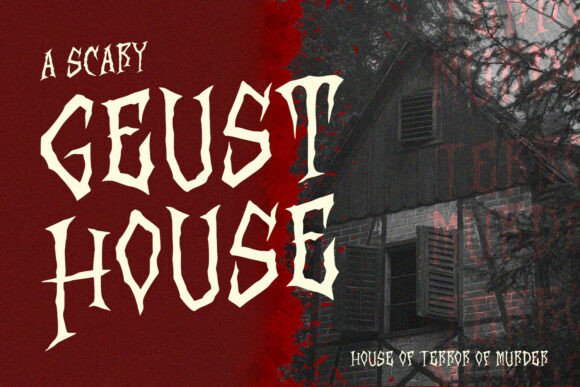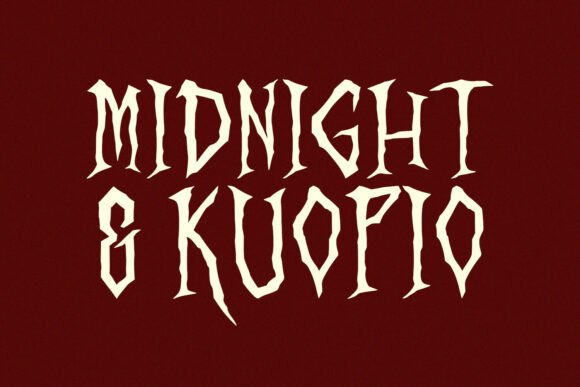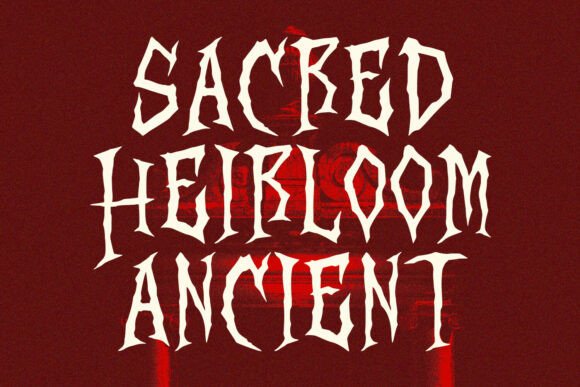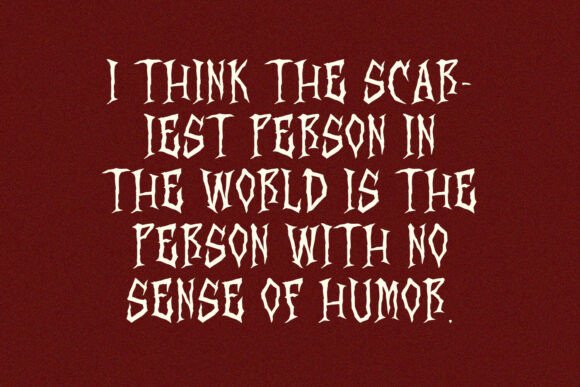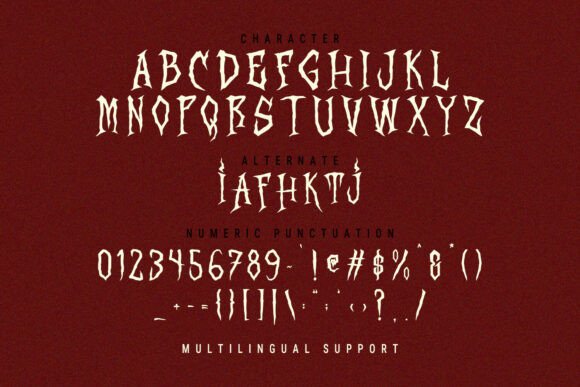
Unleash the Horror with Annarzaq Font: A Spine-Chilling Display Font
Are you a designer or crafter looking for a font that can add a touch of horror and dark fantasy to your visuals? Look no further than the Annarzaq Font, a bold and spine-chilling display font that is perfect for creating eerie and hauntingly unique designs. With its jagged edges and gothic influence, Annarzaq Font is ideal for a variety of projects, from book covers and movie posters to metal band logos and Halloween decor.
The Inspiration Behind Annarzaq Font
Annarzaq Font is a handcrafted font that draws inspiration from the darker side of design. Its creator aimed to craft a font that would evoke a sense of fear and unease, making it perfect for projects that require a bold and attention-grabbing aesthetic. The result is a font that is both eerie and fascinating, with a unique character that sets it apart from other display fonts.
Key Features of Annarzaq Font
So, what makes Annarzaq Font so special? Here are some of its key features:
- Bold and Spine-Chilling Design: Annarzaq Font is designed to make a statement. Its bold and jagged edges give it a menacing look that is sure to grab attention.
- Gothic Influence: The font’s gothic influence adds to its eerie and haunting feel, making it perfect for projects that require a dark and mysterious aesthetic.
- Handcrafted Style: Annarzaq Font is a handcrafted font, which gives it a unique and organic feel. Each letter has been carefully crafted to create a sense of unease and tension.
- Multilingual Support: The font supports multiple languages, making it a versatile choice for designers and crafters from around the world.
Use Cases for Annarzaq Font
So, what can you use Annarzaq Font for? The possibilities are endless, but here are some ideas to get you started:
- Book Covers: Add a touch of horror and suspense to your book covers with Annarzaq Font. It’s perfect for thriller, horror, and dark fantasy novels.
- Movie Posters: Create eye-catching movie posters with Annarzaq Font. Its bold and attention-grabbing design makes it perfect for horror movies and dark fantasy films.
- Metal Band Logos: Give your metal band logo a bold and menacing look with Annarzaq Font. Its gothic influence and jagged edges make it perfect for heavy metal music.
- Halloween Decor: Add a touch of horror and spookiness to your Halloween decor with Annarzaq Font. Use it to create eerie signs, posters, and other decorations.
Tips for Using Annarzaq Font
Here are some tips for using Annarzaq Font effectively:
- Use it Sparingly: Annarzaq Font is a bold font, so use it sparingly to avoid overwhelming your design.
- Pair it with Other Fonts: Pair Annarzaq Font with other fonts to create a unique and interesting contrast. A serif font or a script font can help balance out the boldness of Annarzaq Font.
- Experiment with Colors: Annarzaq Font looks great in bold and bright colors, but you can also experiment with darker colors to create a more ominous look.